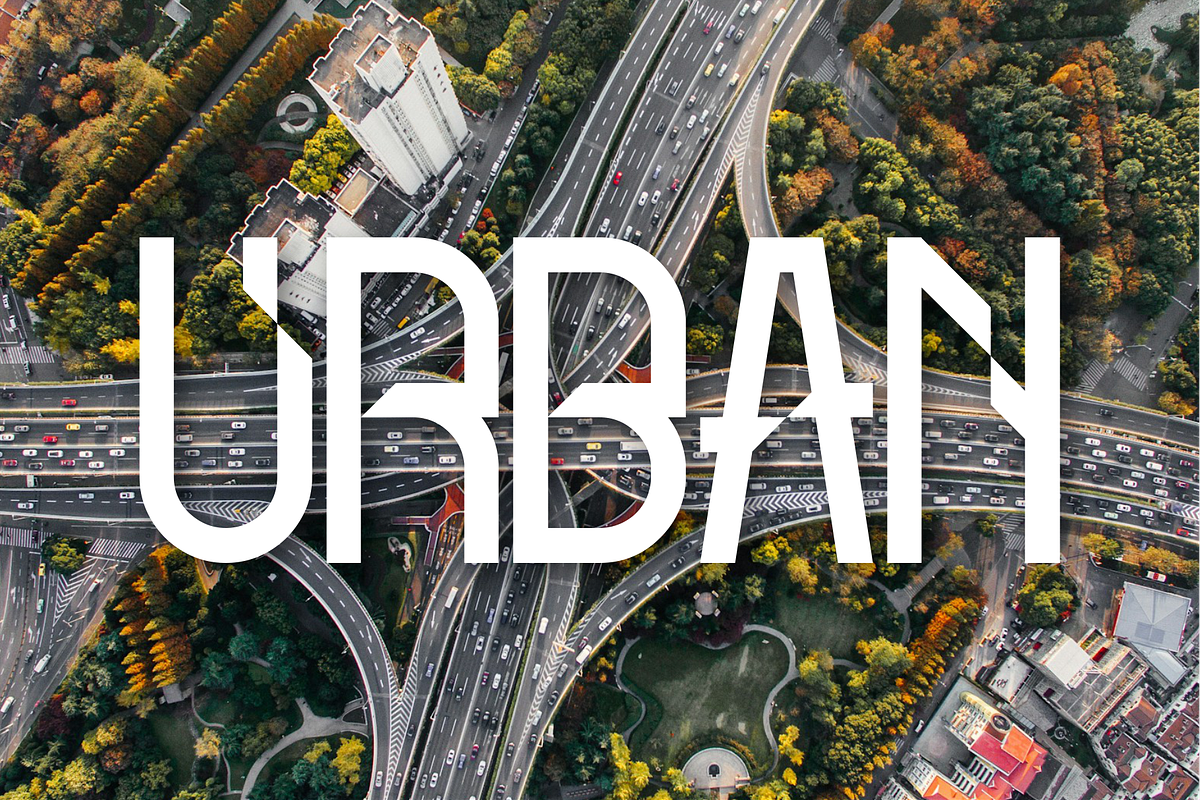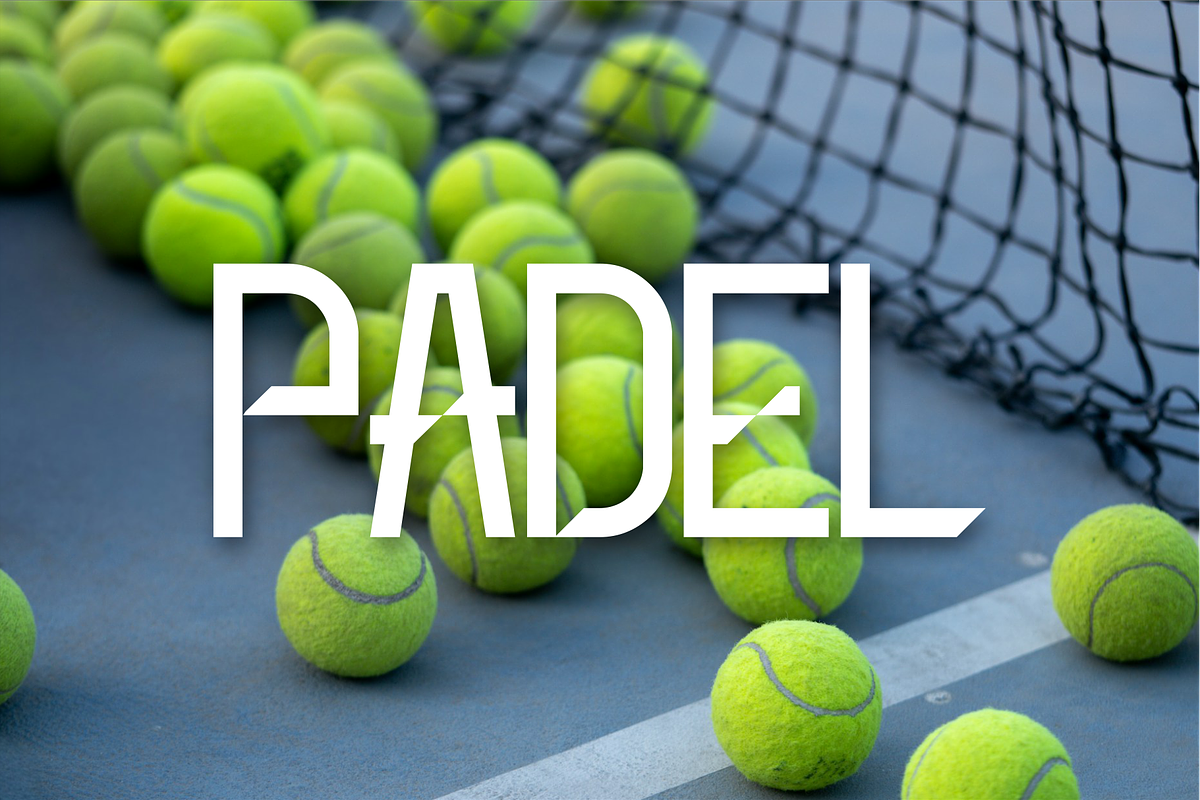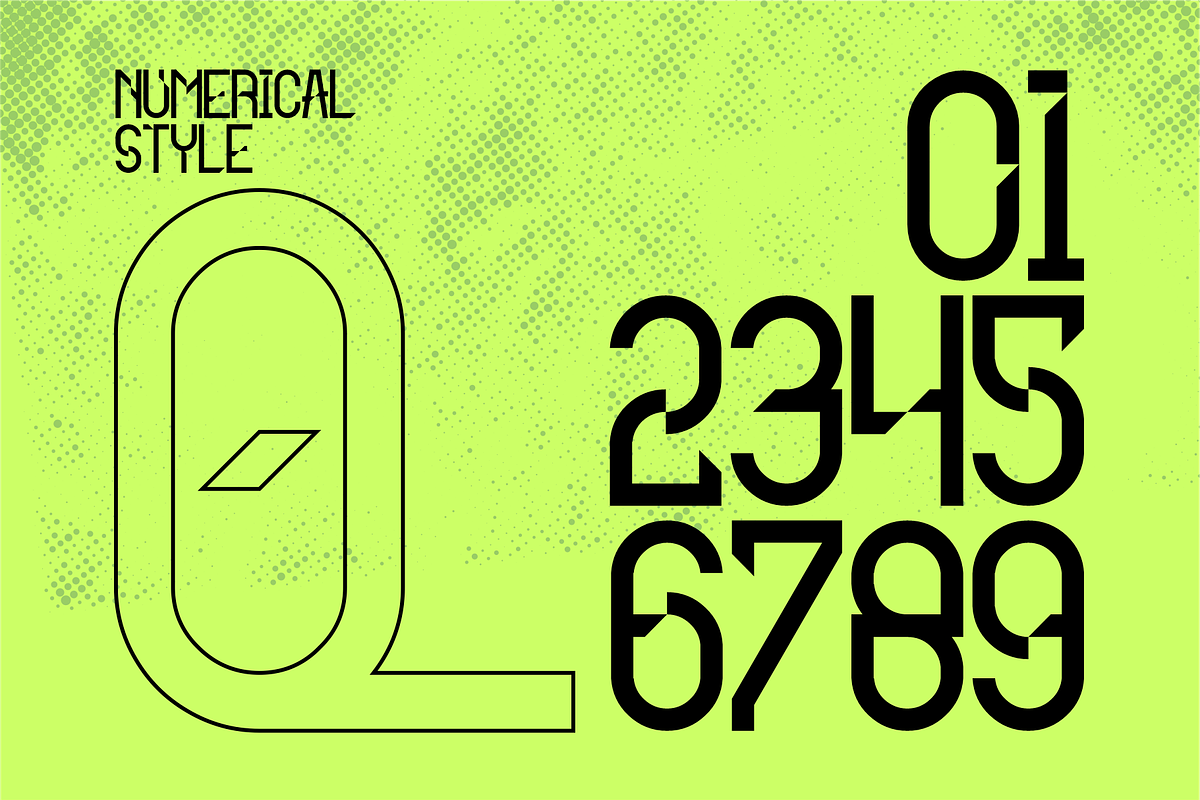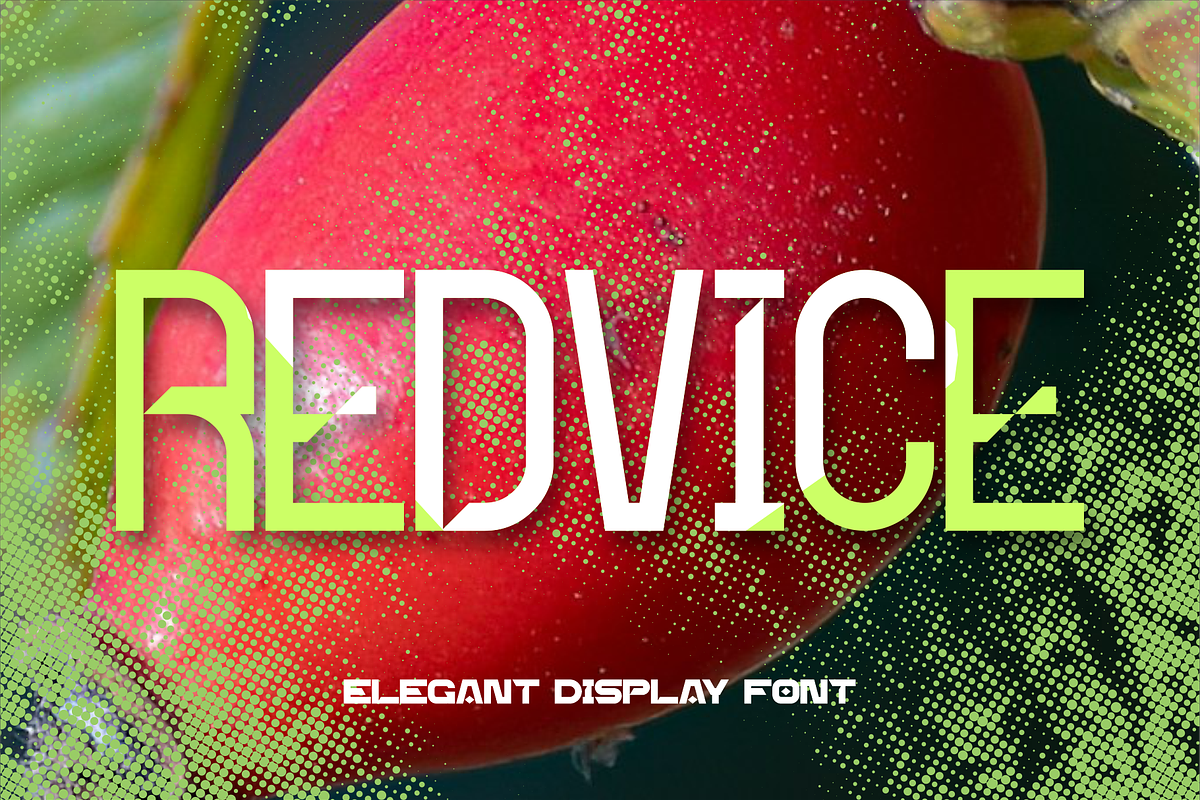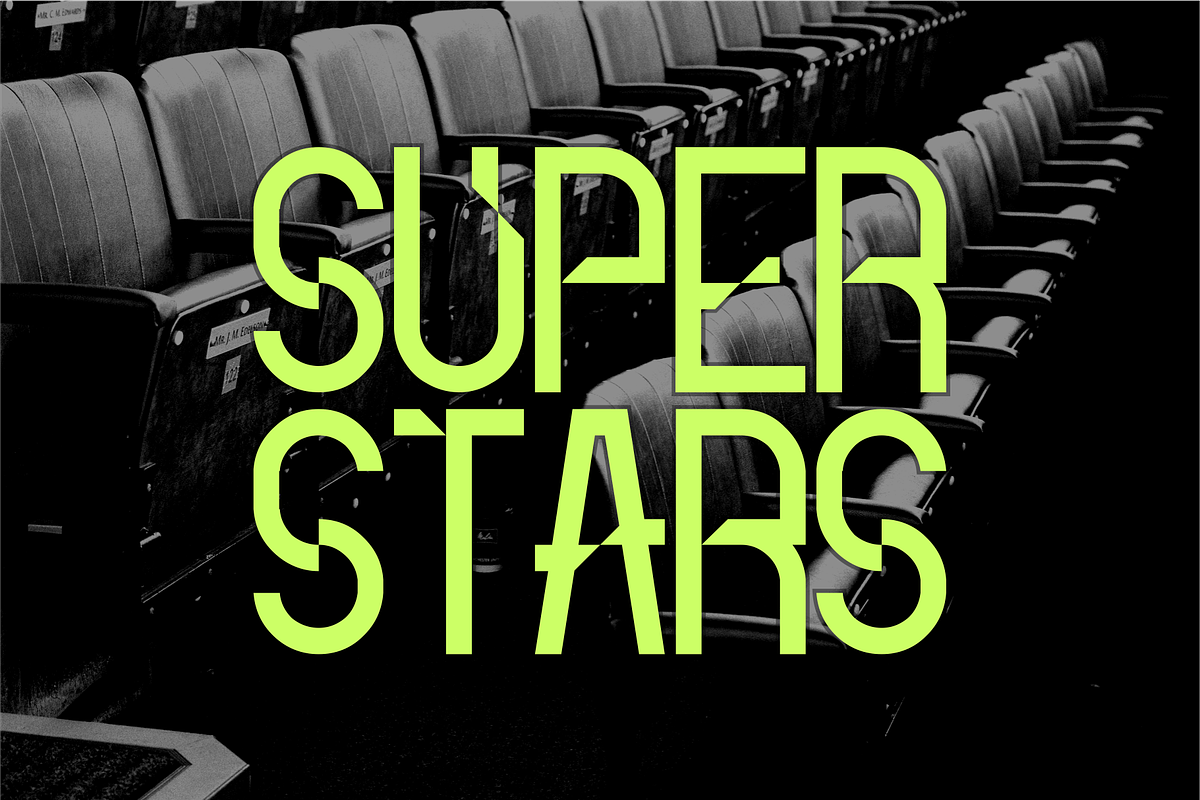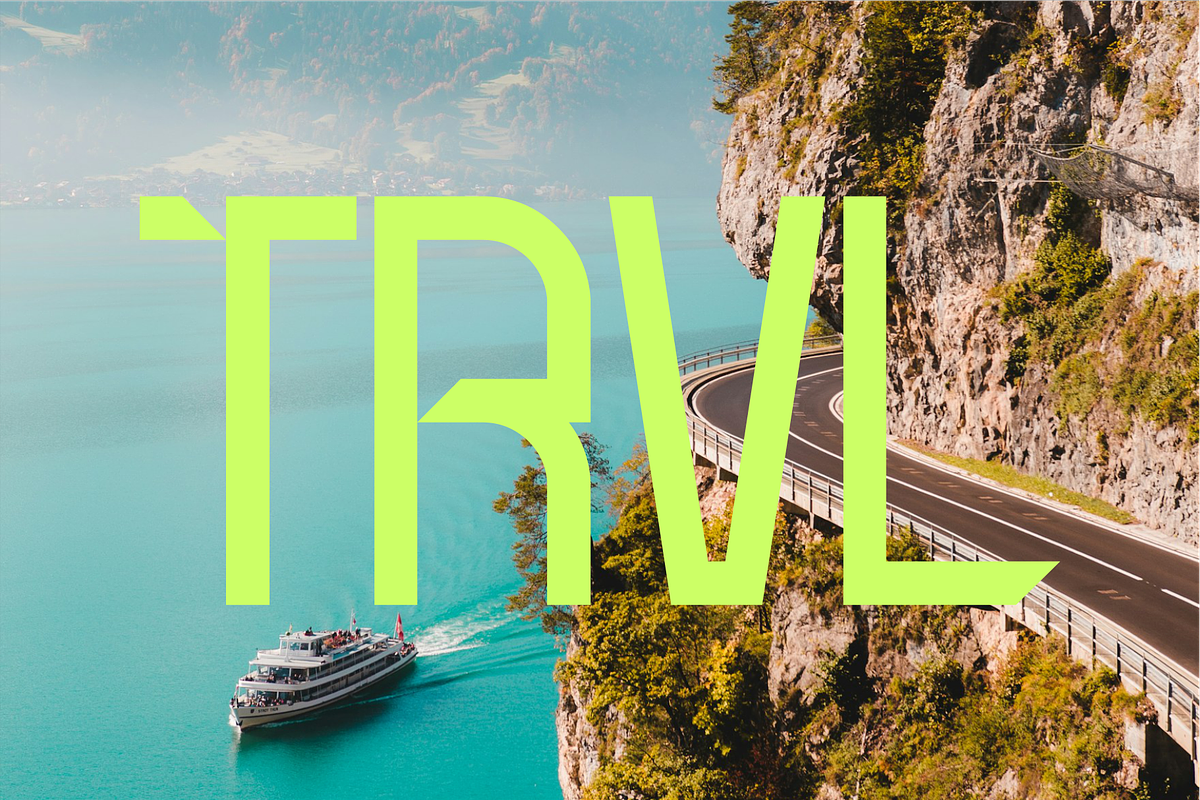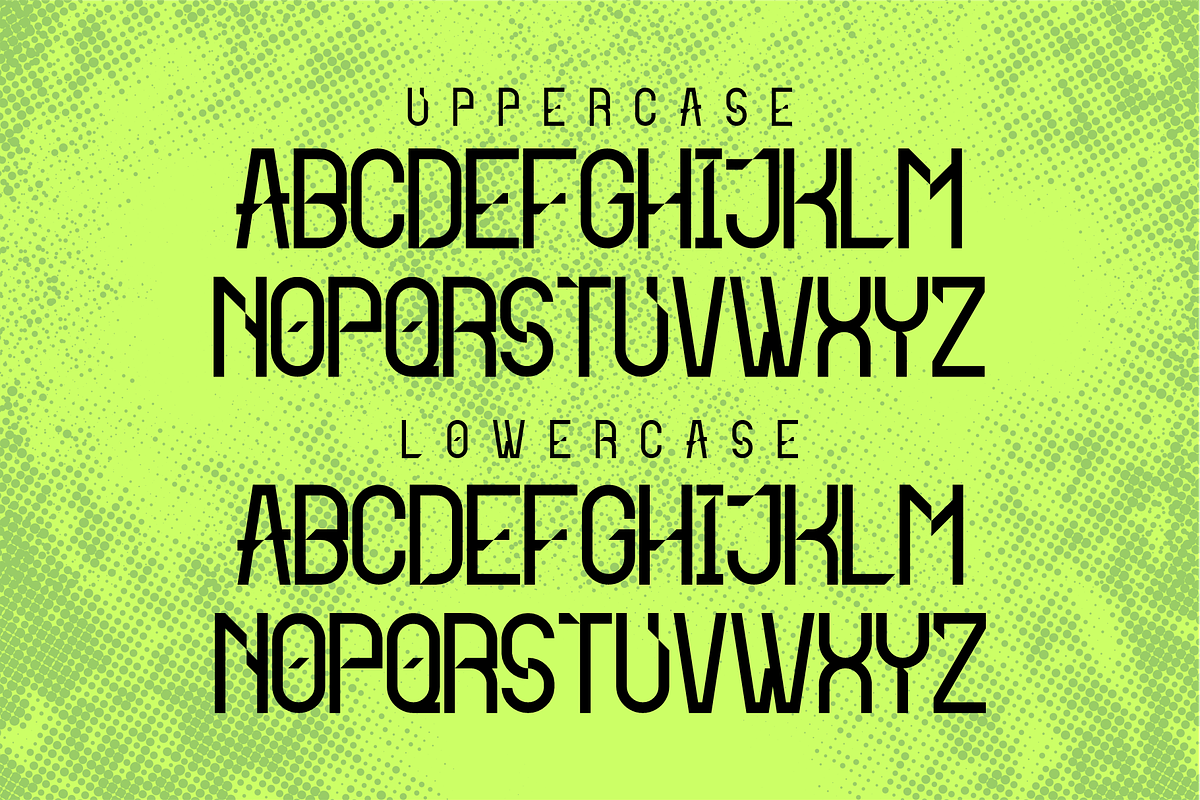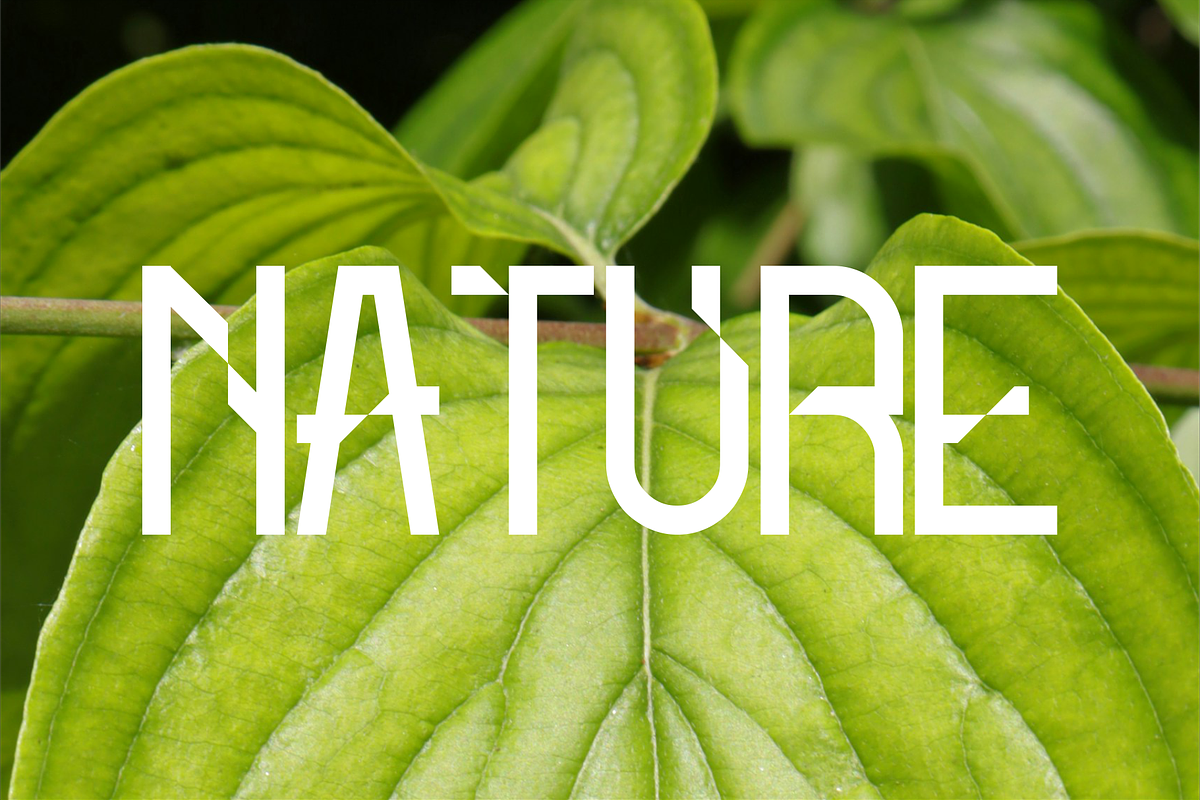
REDVICE
REDVICE is a modern display font featuring a lightweight yet strong and sporty character. Designed with sleek, clean, and precise letterforms, this typeface delivers a dynamic look inspired by professional football jersey name set fonts.
Each character in REDVICE is crafted with sharp lines and balanced proportions, making it clear, modern, and powerful even with its lighter weight. This combination gives the font a unique athletic feel that stands out while maintaining excellent readability.
REDVICE is perfect for projects that require a sporty, competitive, and professional visual style.**